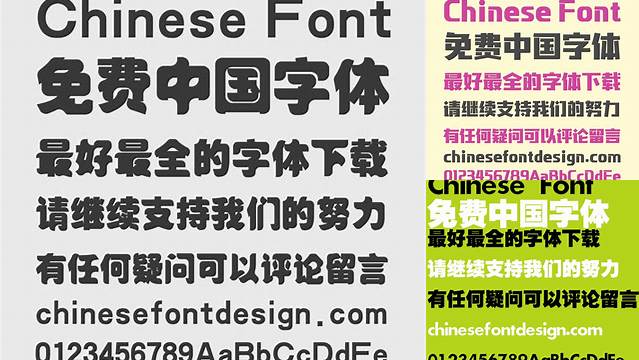
Hey guys! Are you looking to add some serious impact to your designs with a stunning Chinese bold font? You've landed in the right place! In this article, we're diving deep into the world of Chinese bold fonts, exploring everything from where to find them for free to how to use them effectively. We'll cover a ton of ground, ensuring you're equipped with the knowledge to make your projects truly stand out. So, let's jump right in and unlock the power of these incredible fonts!
Chinese bold fonts are more than just a stylistic choice; they represent a rich cultural heritage and can add a layer of authenticity and sophistication to your work. Whether you’re designing a poster, creating a logo, or crafting digital content, choosing the right font is crucial. A bold font can convey strength, confidence, and modernity, making it perfect for headlines, titles, and any text you want to emphasize. But finding the perfect bold font for your Chinese text can be a bit of a challenge, especially when you're looking for free options. That's why we've put together this guide to help you navigate the world of Chinese typography and find the best bold fonts available for download. We’ll explore different styles, licensing considerations, and even some tips on how to pair Chinese bold fonts with other fonts for a cohesive design. So, buckle up and get ready to discover the amazing world of Chinese bold fonts!
1. Exploring Free Chinese Bold Font Options
4. Distinguishing Simplified vs. Traditional Chinese Bold Fonts
The Chinese language has two main writing systems: Simplified Chinese and Traditional Chinese. When you're looking for Chinese bold fonts, it's crucial to understand the difference between these systems and choose the one that's appropriate for your project. Simplified Chinese is primarily used in mainland China, while Traditional Chinese is used in Hong Kong, Taiwan, and Macau. Using the wrong writing system can confuse or even offend your audience. We'll explore the historical context of these writing systems and the key differences in their characters. Chinese bold fonts are available in both Simplified and Traditional versions, and it's essential to select the correct one for your target audience. We'll provide examples of each writing system and highlight the subtle but significant differences in character strokes and structures. Many designers who are new to Chinese typography find this distinction challenging, but we're here to make it clear. So, let’s demystify Simplified and Traditional Chinese and ensure you choose the right font for your needs.
5. Top Chinese Bold Font Styles for Graphic Design
Now for the fun part! Let's explore the different styles of Chinese bold fonts that are perfect for graphic design. From classic Ming fonts to modern sans-serif styles, there's a bold font out there for every project. We'll showcase some of the most popular styles and discuss their unique characteristics. For example, Ming fonts are known for their elegance and readability, while Hei fonts offer a more contemporary and streamlined look. Chinese bold fonts can convey a wide range of emotions and tones, from traditional and sophisticated to bold and impactful. We'll provide visual examples of each style and discuss the types of projects they're best suited for. Choosing the right style is crucial for creating a design that resonates with your audience. Many designers experiment with different styles to find the perfect fit, and we're here to guide you through that process. So, let's dive into the world of Chinese font styles and discover the perfect one for your next project.
6. Using Chinese Bold Fonts in Logos and Branding
Chinese bold fonts can be incredibly effective for creating logos and branding materials that stand out. A bold font can convey strength, reliability, and a sense of cultural heritage, making it ideal for businesses that want to project a strong and authentic image. We'll discuss how to choose a Chinese bold font that aligns with your brand's identity and values. The right font can communicate your brand's personality and resonate with your target audience. We'll also explore how to incorporate Chinese characters into your logo design and create a visual identity that's both unique and memorable. Many companies are now using Chinese bold fonts to appeal to the growing Asian market, and we'll show you how to do it effectively. So, let’s dive into the world of branding and discover how Chinese bold fonts can elevate your visual identity.
7. Pairing Chinese Bold Fonts with Other Fonts
Pairing Chinese bold fonts with other fonts can be tricky, but when done right, it can create a visually stunning and cohesive design. The key is to find fonts that complement each other without competing for attention. We'll discuss the principles of font pairing and provide tips on how to create harmonious typography. For example, pairing a Chinese bold font with a simple sans-serif font can create a balanced and modern look. We'll also explore the use of different font weights and styles to create visual hierarchy and guide the reader's eye. Chinese bold fonts often have intricate details, so it's important to pair them with fonts that are clean and easy to read. Many designers struggle with font pairing, but we're here to simplify the process. So, let’s dive into the art of typography and discover how to create beautiful and effective font combinations.
8. Designing Posters with Chinese Bold Fonts